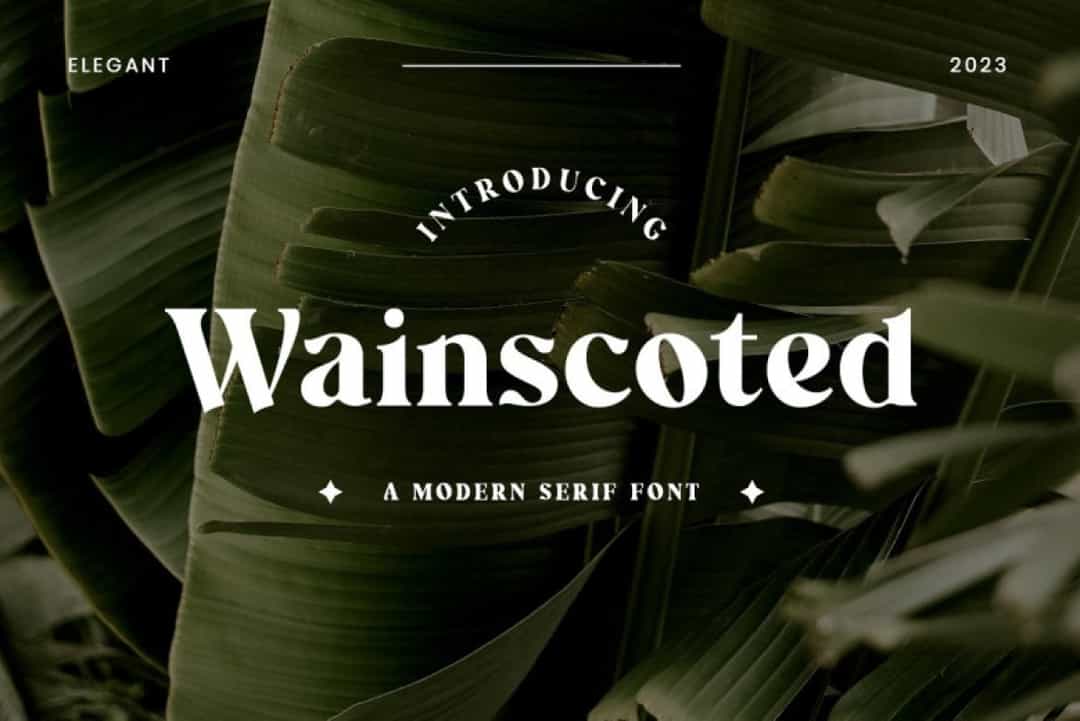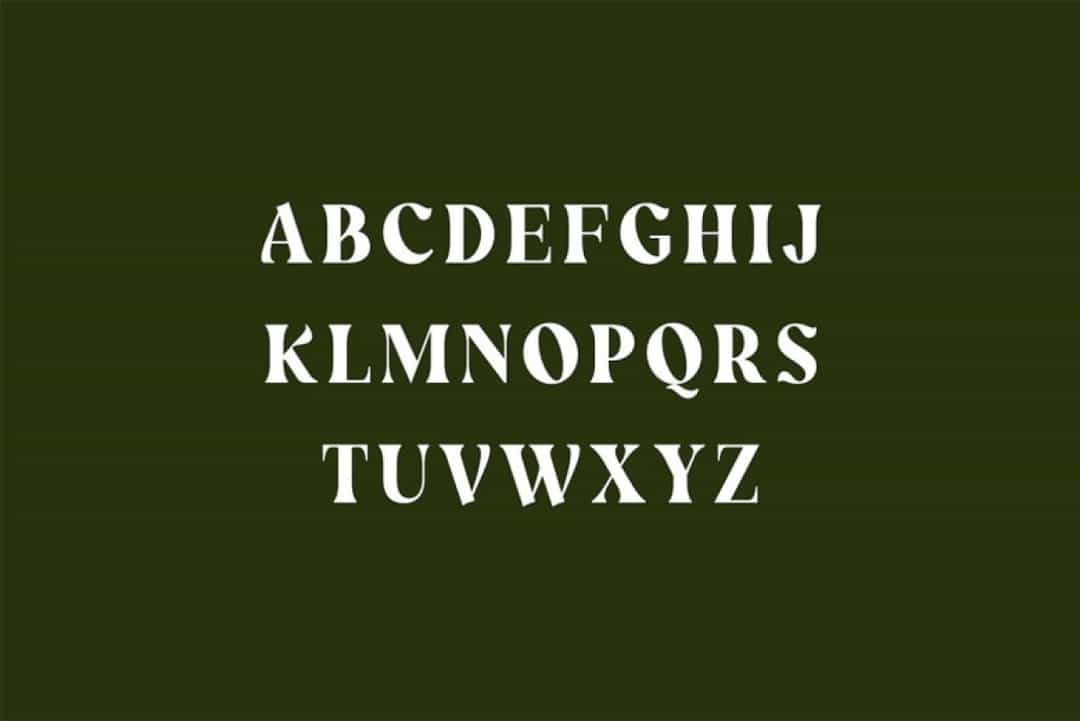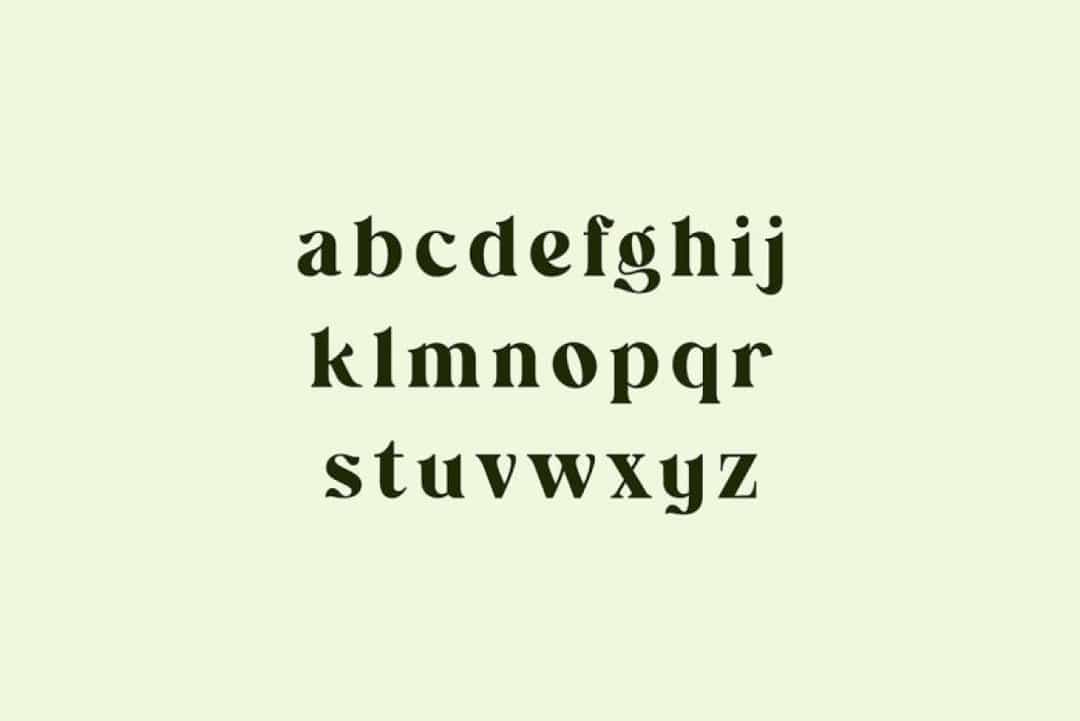
Wainscoted is an elegant, sophisticated and contemporary serif typeface perfect for many designs such as logos, signatures, stationery wedding, typography quotes book or magazine covers, headers for websites as well as packaging clothing branding design among many more.